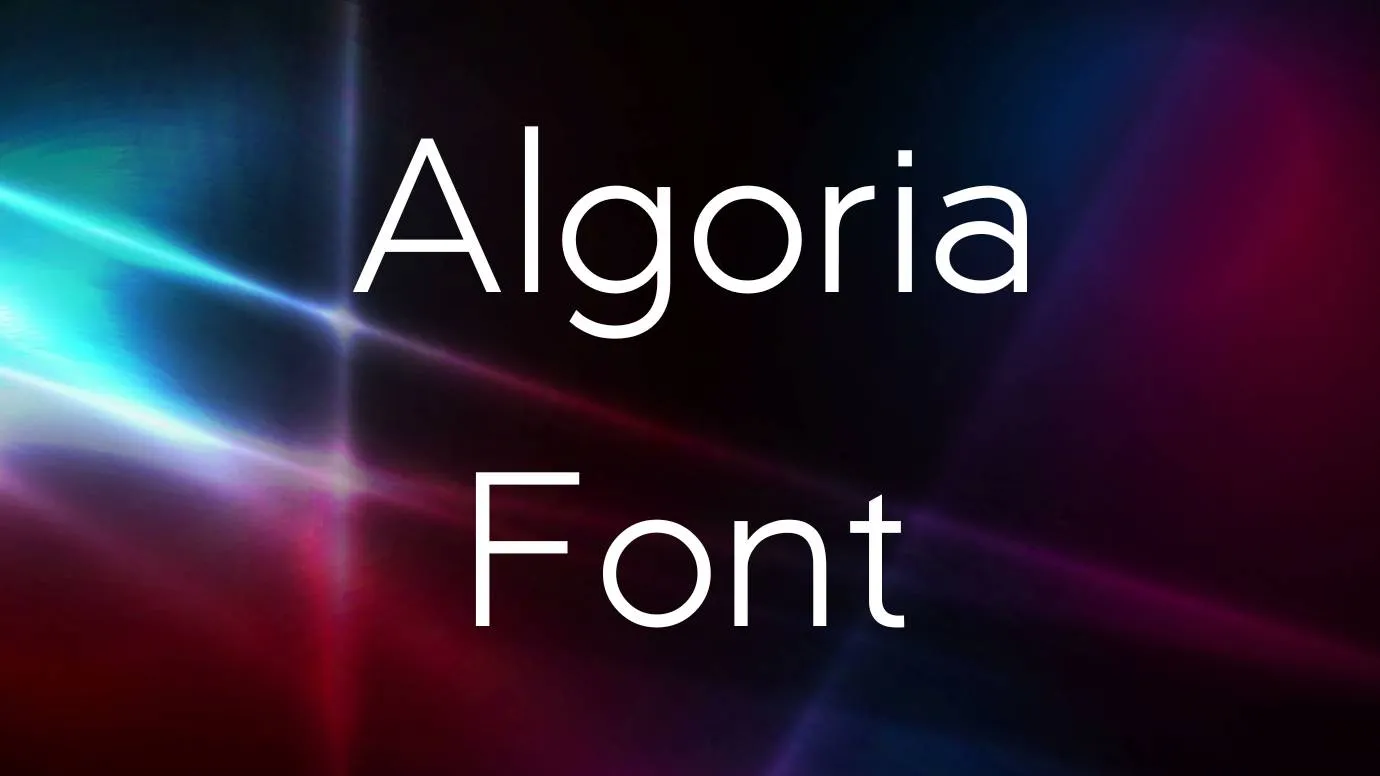
Algoria Font Family is a modern look sans-serif font that has an outstanding look and style. This font family comes in 18 weights that produce a number of unique styles. Algoria typeface was established by Saiful Anwar and released by Sealoung.
This modern font has unique features that are suitable for specified CSS and HTML. Its attractive letters are suitable for use in different high-quality design purposes.
Algoria Font